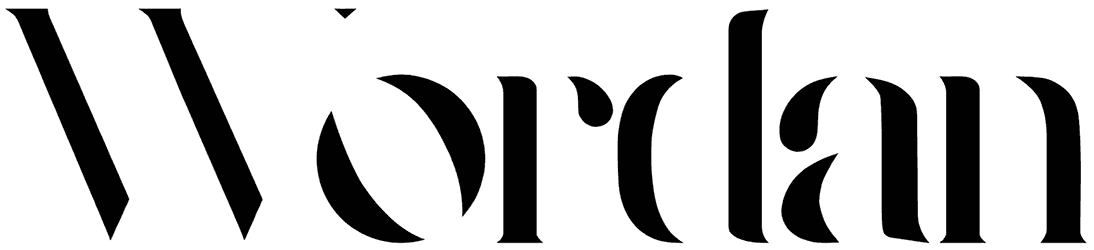
Wordan Font
Familiarize Wordan, as a modern font with a fashionable mood. This business card font will give you words faded in some areas. Wordan is so futuristic and can be harmonized with lots of projects. Just set it on the design that you are working on it such as logos, flyers, foregrounds, or others, and be proud of the outcome.